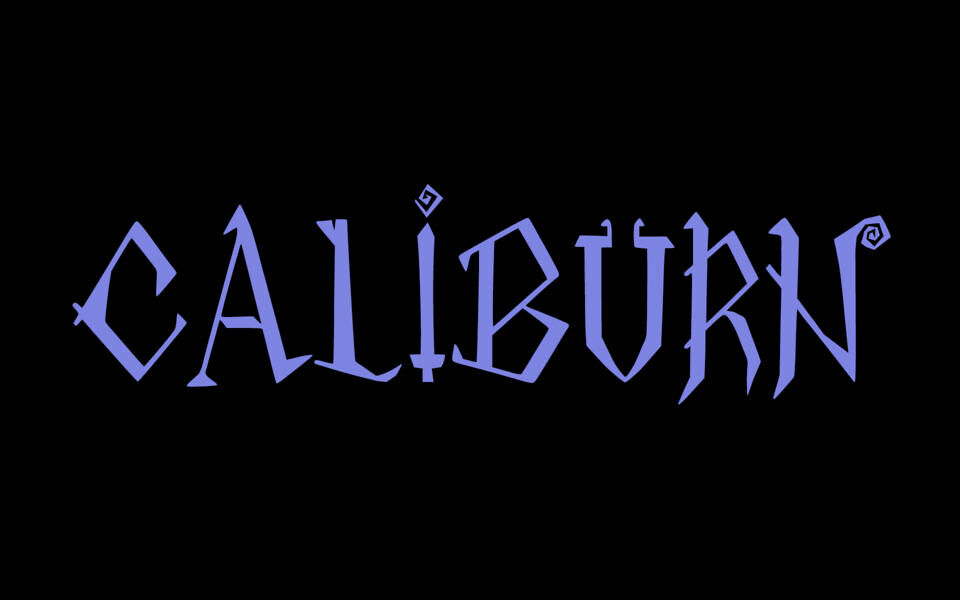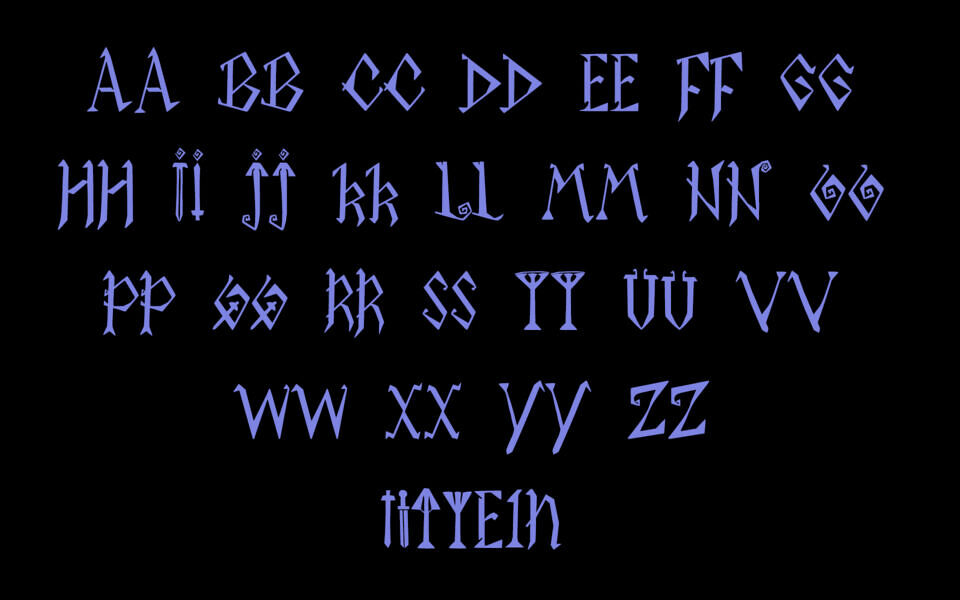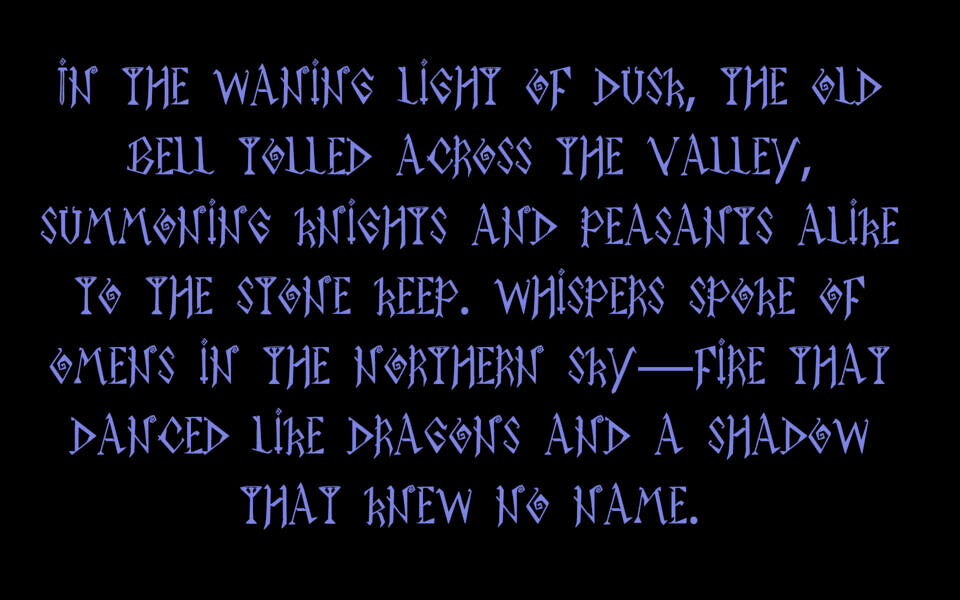
Caliburn Font
Caliburn is a captivating, free display font that beautifully merges Gothic script characteristics with a bold, dark fantasy flair. Defined by its sharp, angular serifs, unique stylized capital letters, and subtle decorative swirls (visible on ‘I’, ‘N’, ‘R’, and ‘G’), this typeface is perfect for setting a medieval, mystical, or ominous tone.
Excellent for video game logos, fantasy novel covers, Halloween promotions, and projects that demand a powerful, archaic, or Celtic visual identity.